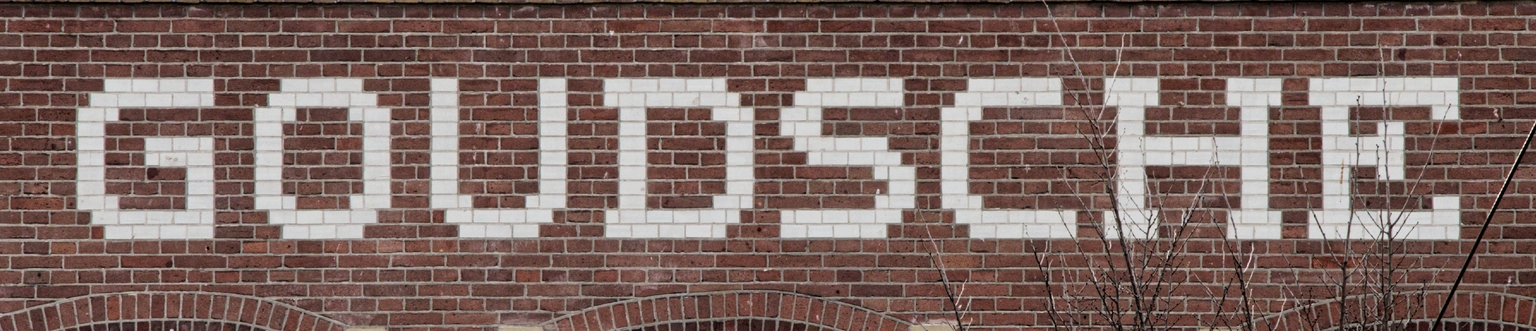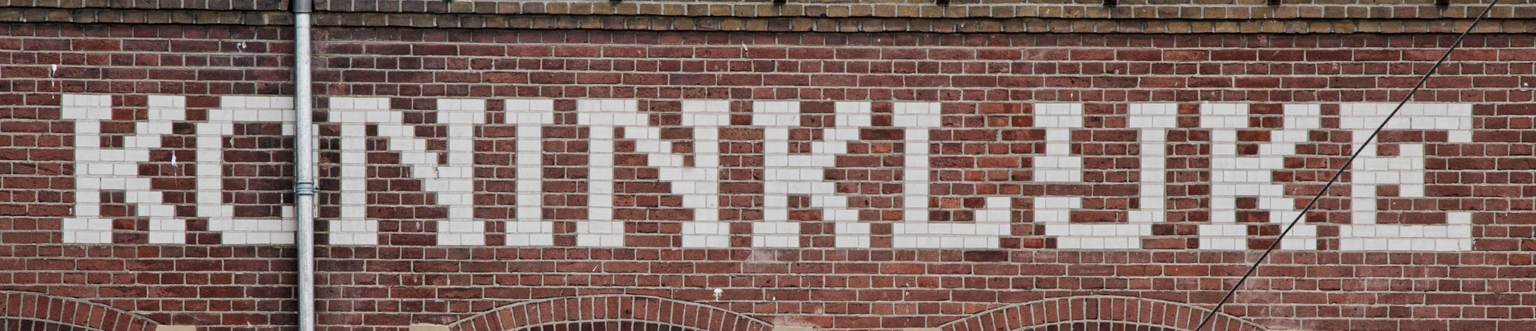
Brikka
Brikka is a modular display typeface designed by Ramiro Espinoza and inspired by the lettering painted directly into the brick wall of the former yarn manufacturer Goudsche Machinale Garenspinnerij, located along the Turfsingel in Gouda, the Netherlands. The original inscription makes inventive use of the brick layout itself, treating the masonry as a fixed grid and shaping the letters accordingly. The result is a form of architectural “pixel lettering,” where material constraints become a defining visual feature.
Espinoza studied how the original design leverages the rhythm, proportions, and alignment of the bricks to construct expanded, legible letterforms with a strong graphic presence. These principles were translated into a digital typeface that preserves the grid-based logic and bold character of the source while refining spacing, regularity, and overall consistency. The character set was expanded to meet contemporary typographic requirements, without losing the distinctly constructed feel of the original wall lettering.
With its wide proportions, modular structure, and architectural tone, Brikka is well suited for posters, branding, editorial design, signage, exhibitions, and digital applications that benefit from a clear, impactful, and materially informed typographic voice. Rooted in industrial heritage and site-specific lettering, Brikka connects brick-and-mortar design thinking with modern type practice.